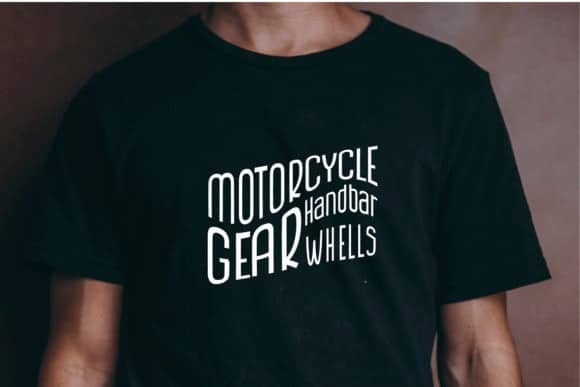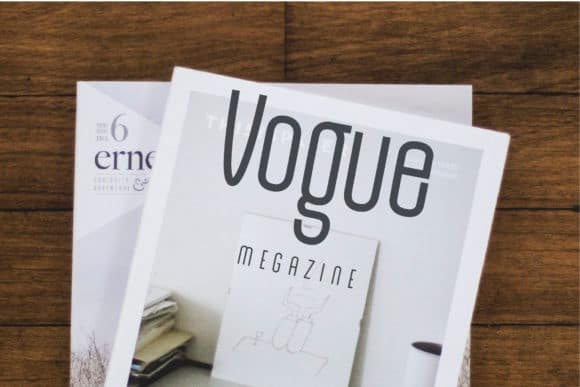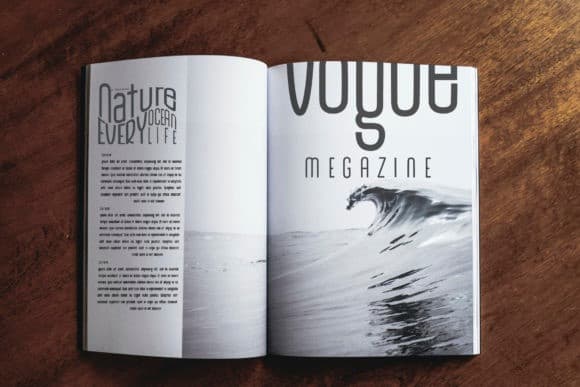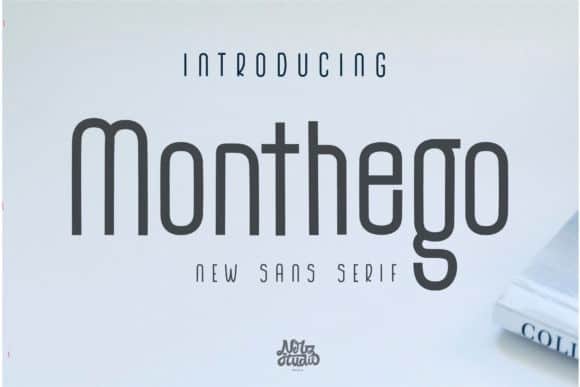
The Monthego Sans Serif Font
The Monthego Sans Serif Font is simple and minimalist sans serif font manufactured by Nerdstudio. Monoline with round edges give a casual and modern impressions. Not too thin and not too thick, balanced and varied, this font was designed to enhance the beauty of your projects.